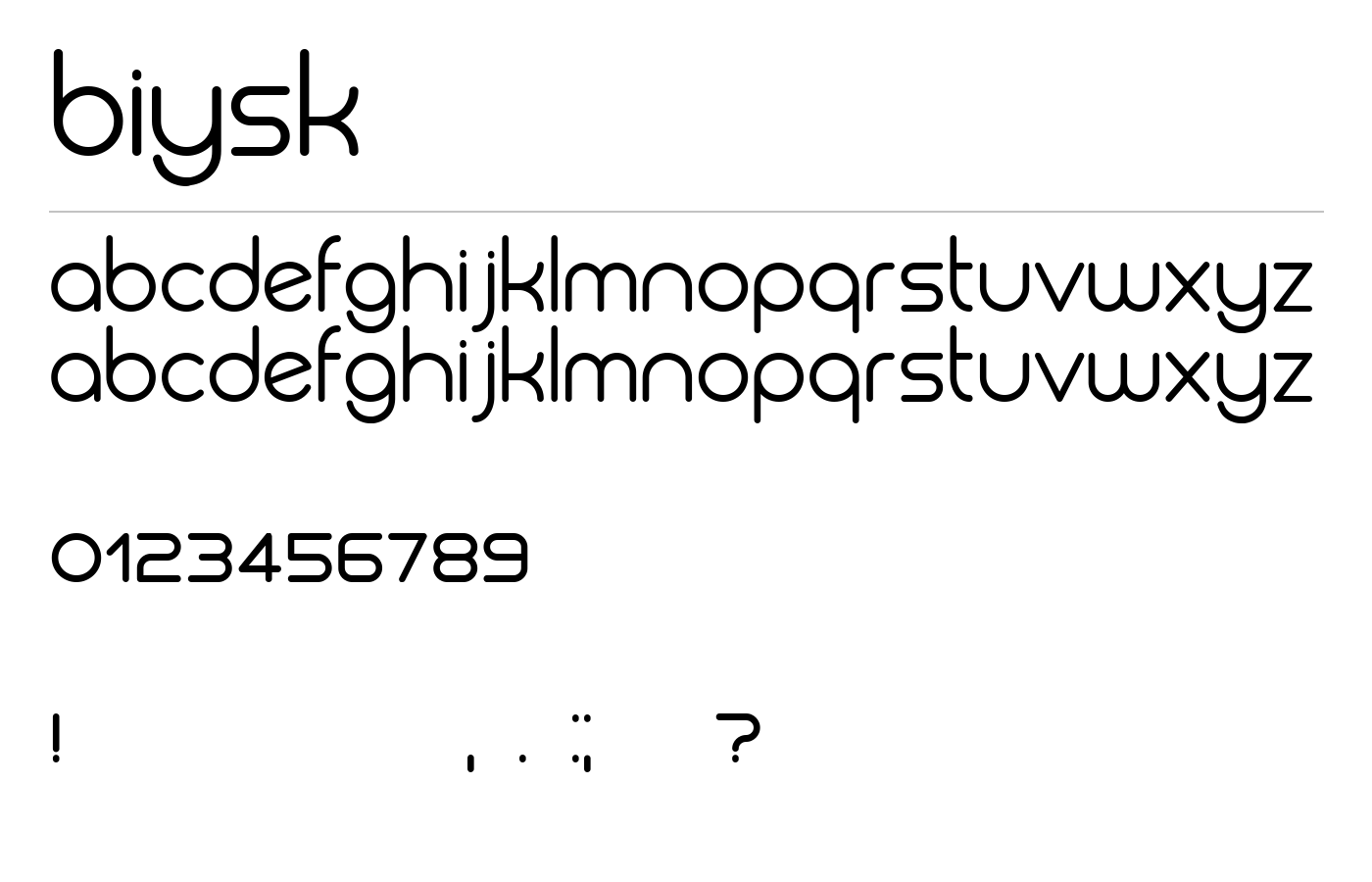
Biysk is a modern sans serif font with a clean, rounded design that gives it a friendly and approachable feel. Its consistent stroke weight and high x-height make it highly readable, while the unique geometric shapes add a contemporary and playful touch. This font works well for branding, web design, and headings where a sleek yet casual look is desired.
Biysk Font
About Biysk Font